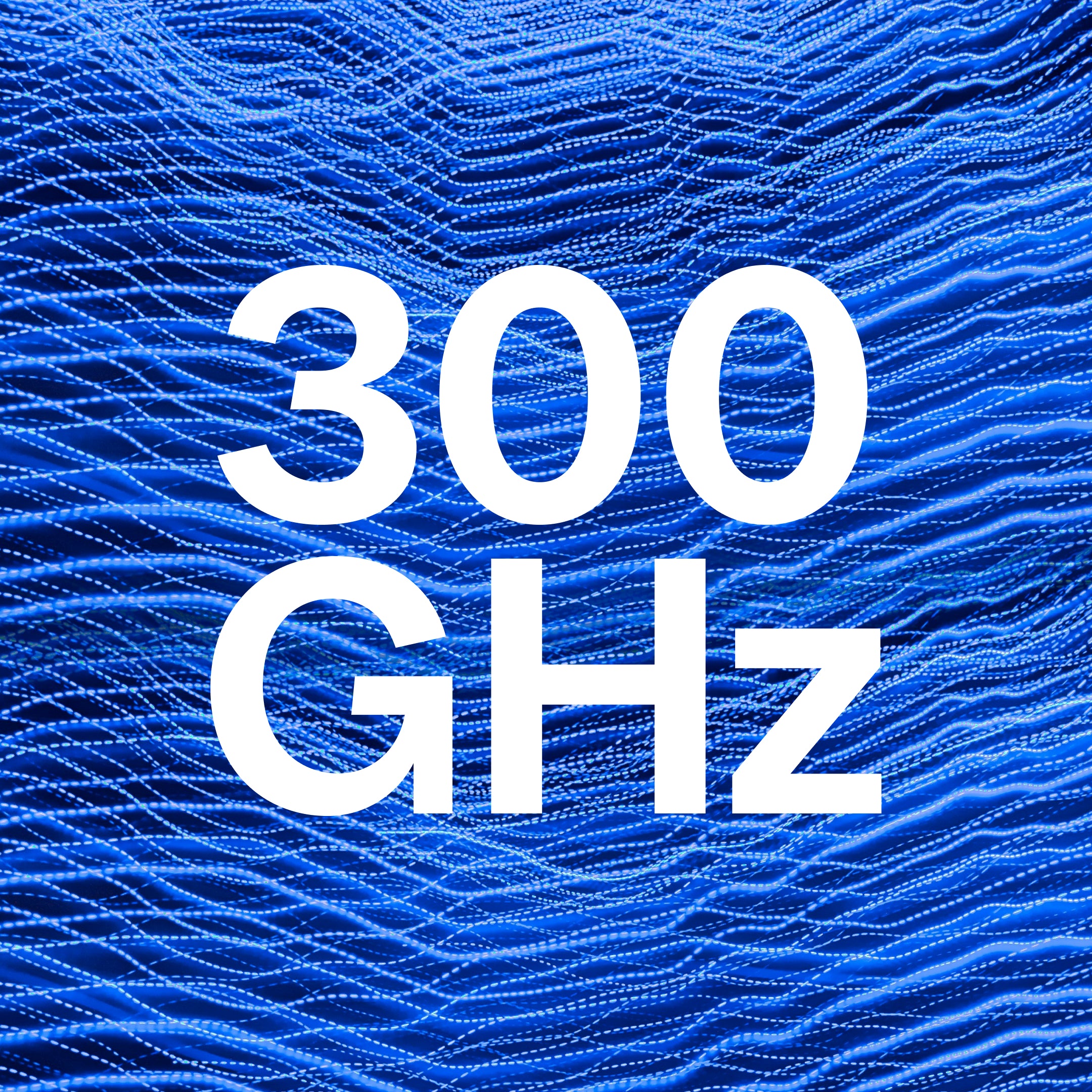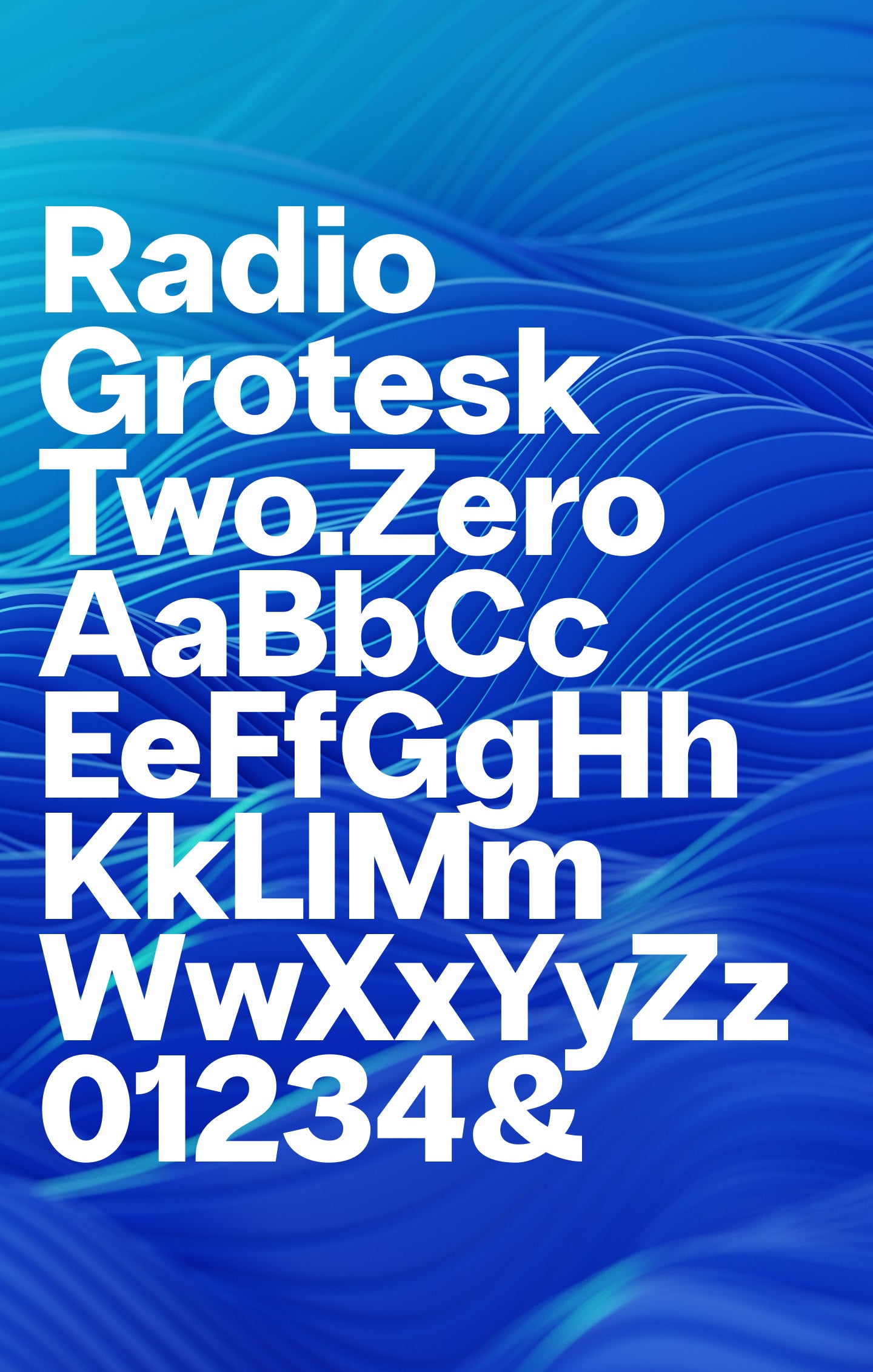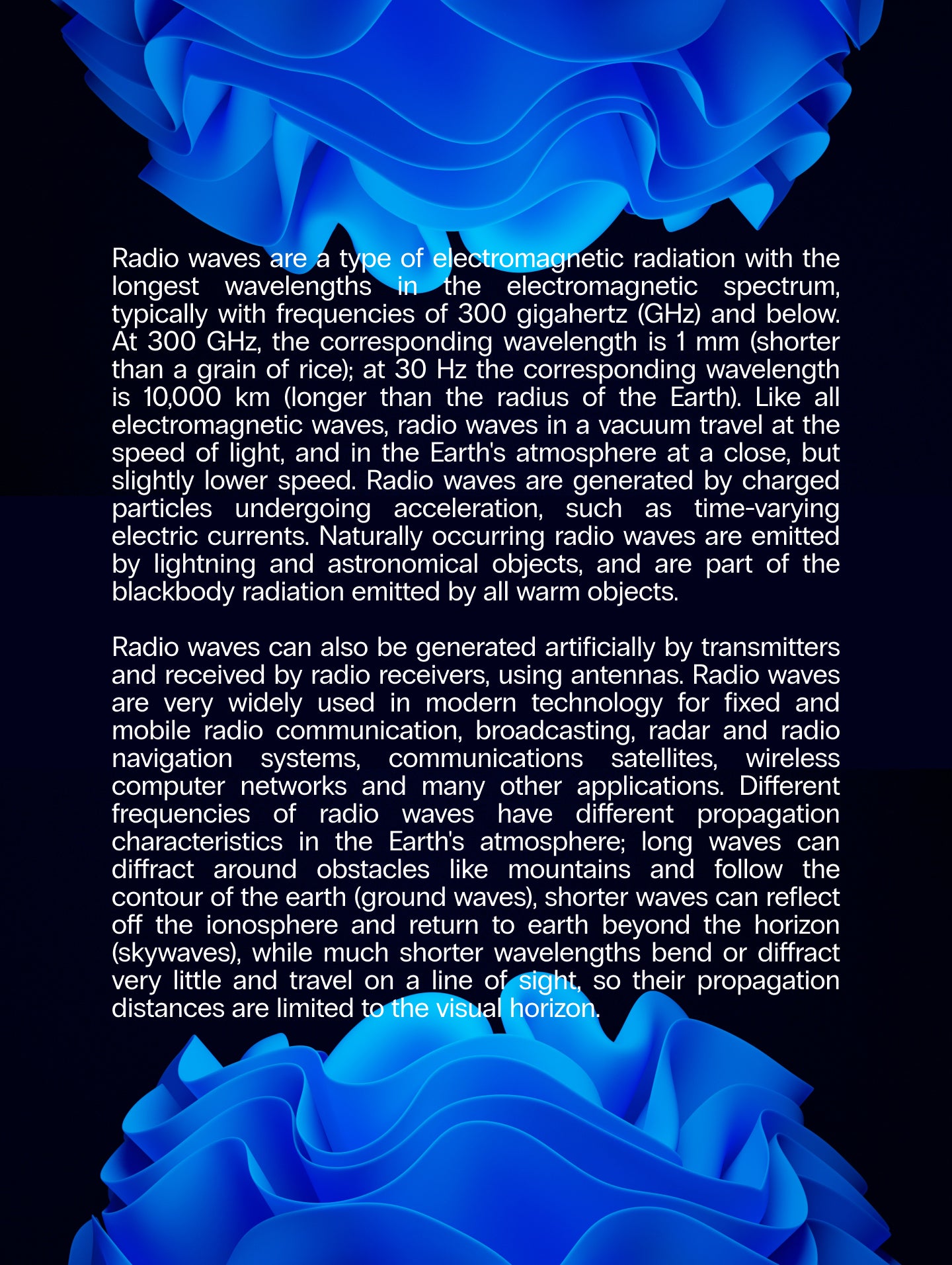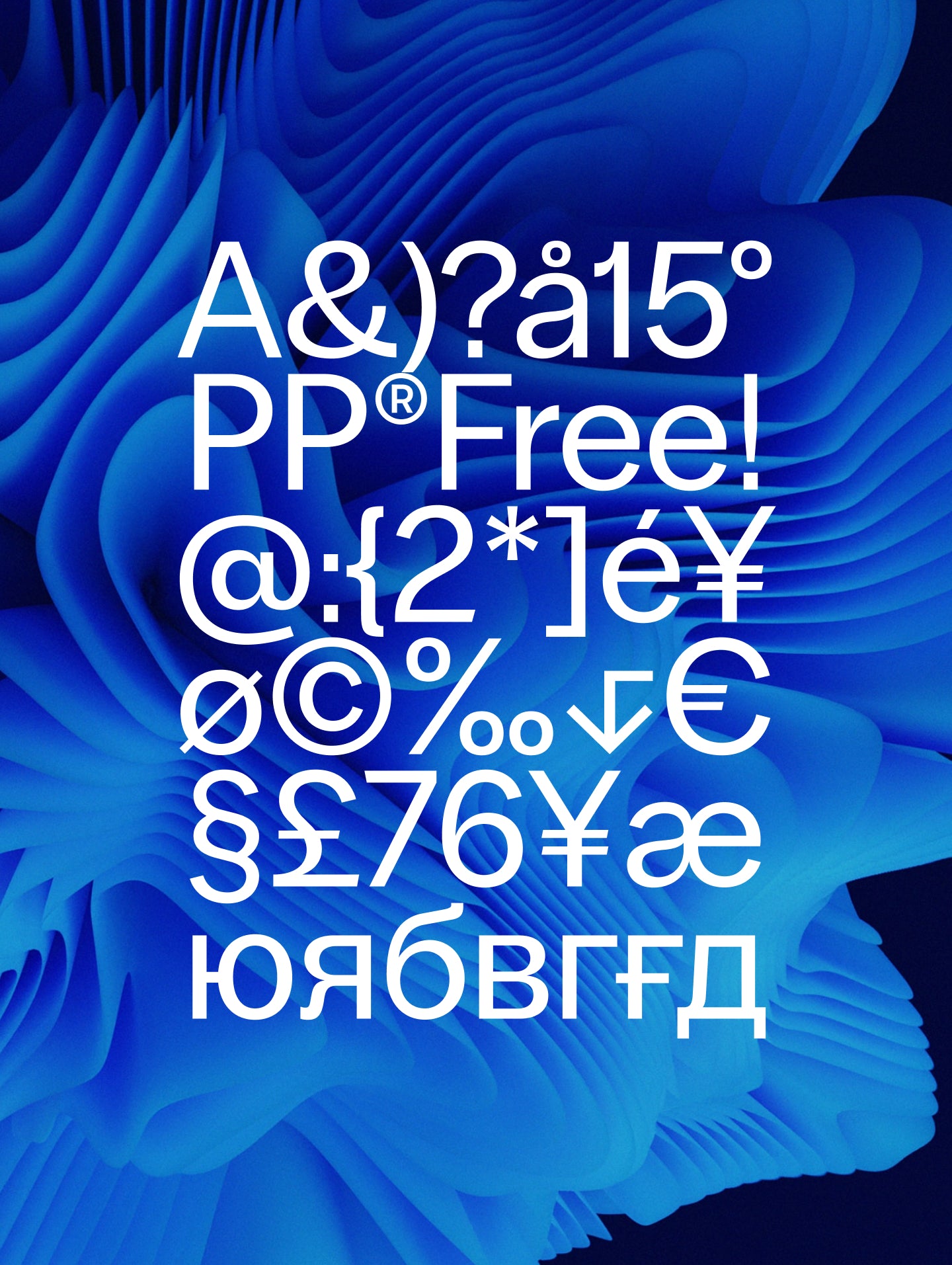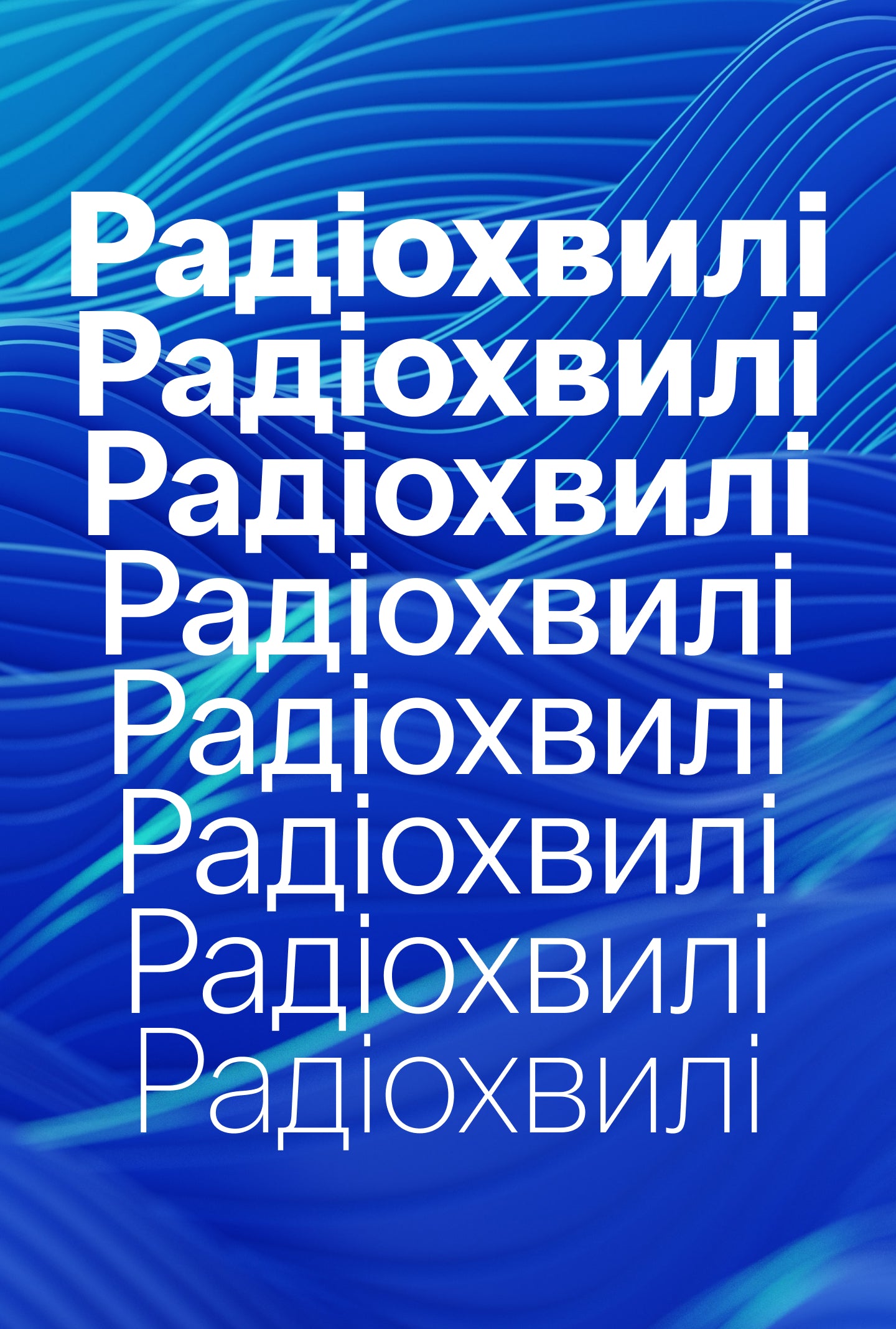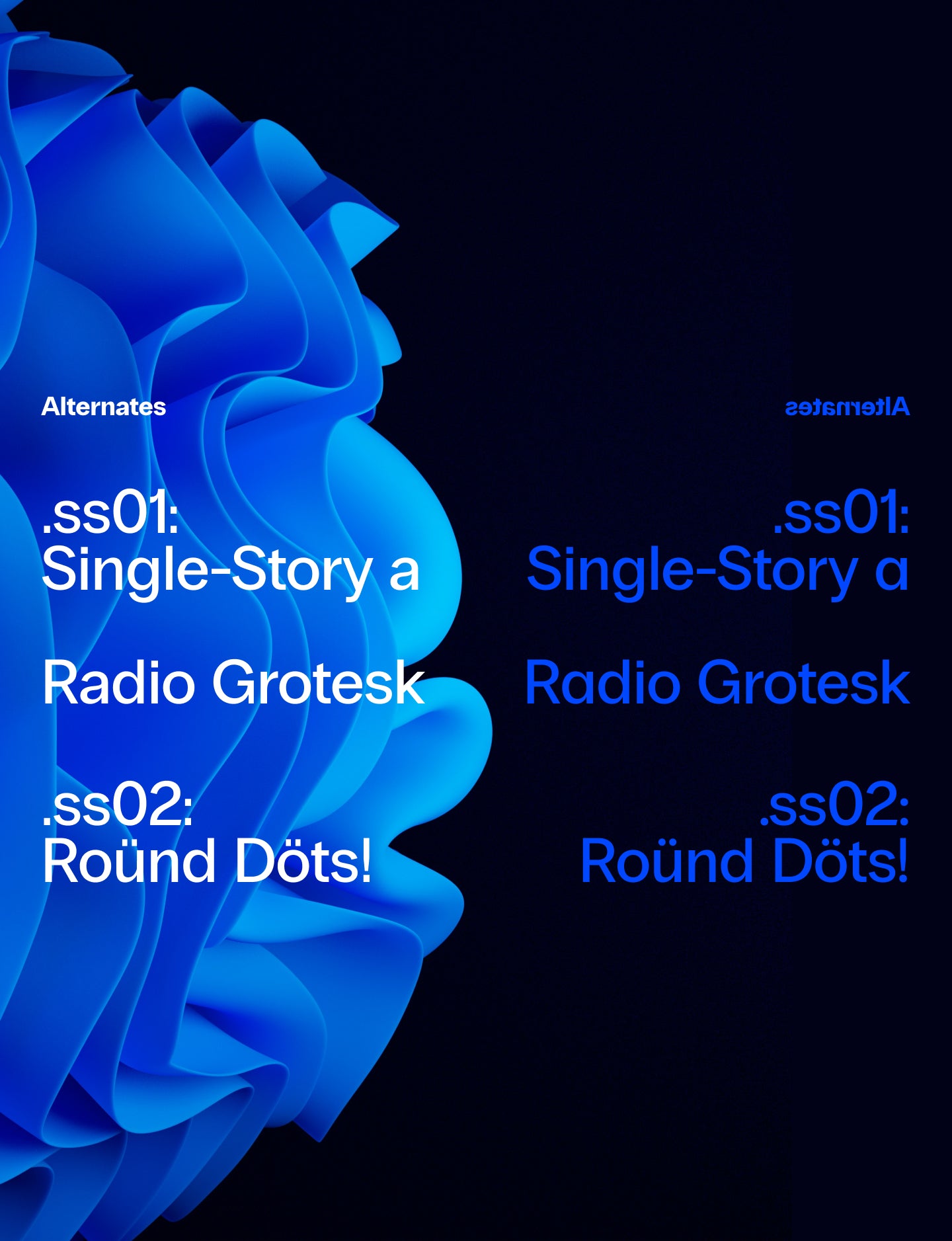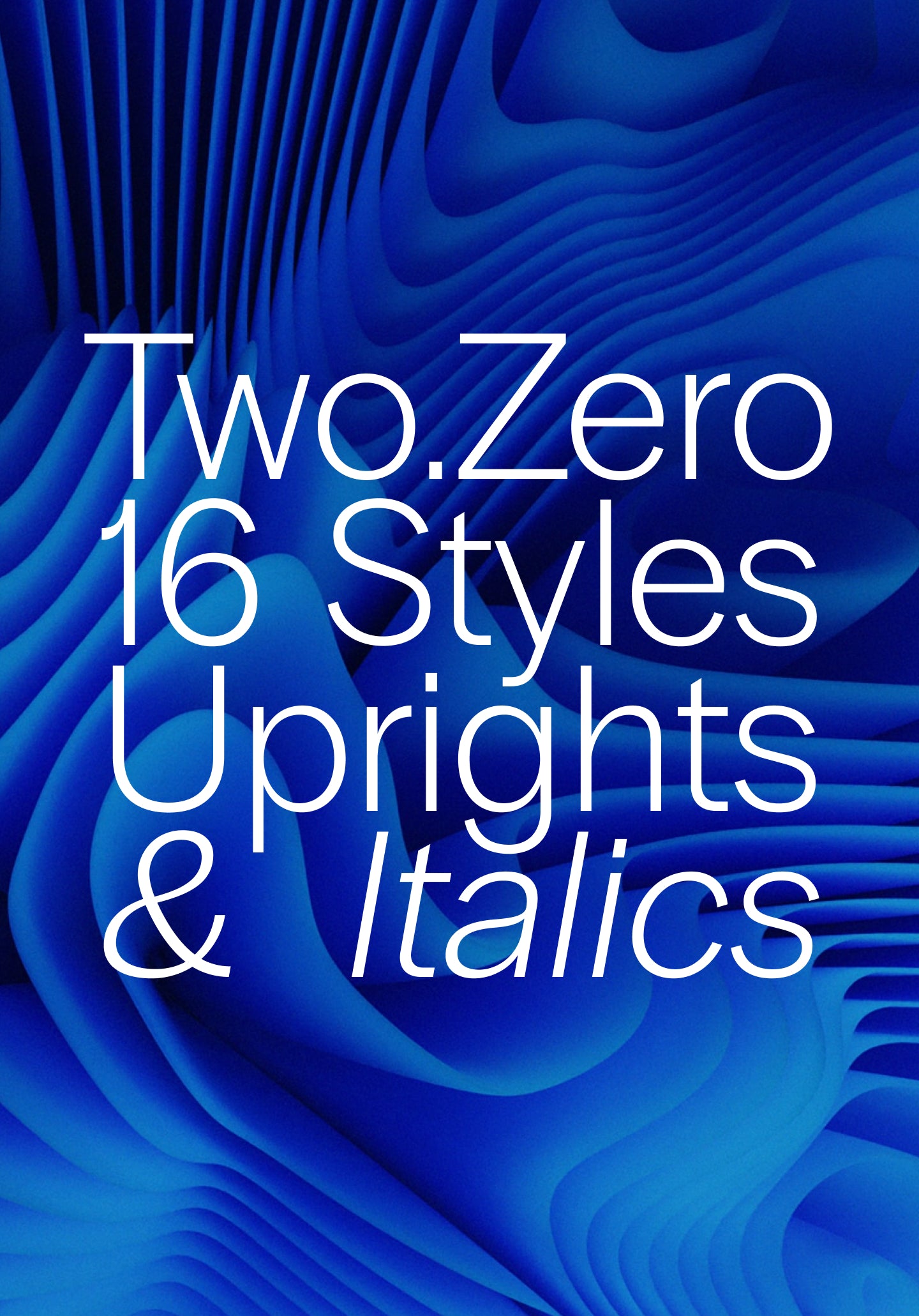
With established majuscules and sophisticated minuscules Radio Grotesk brings contemporary characterics to a classic Grotesk style ● The three weights allow the font to be effortlessly adaptable to any project.
| Styles | 16 Styles with 742 Glyphs each Including Italics & Cyrillic Support |